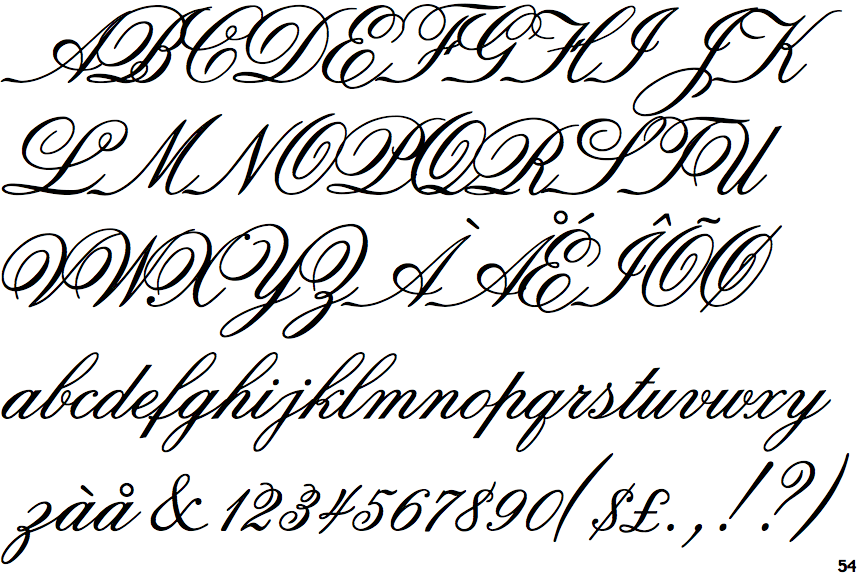
Old Time Calligraphy Fonts. It is also known as blackletter or medieval calligraphy. But there is one point that i was actually right about in childhood:
Initially Used Only When Writing.
Various Forms Of Blackletter Exist, Mainly Including Textualis, The Most Calligraphic Form Of Blackletter;